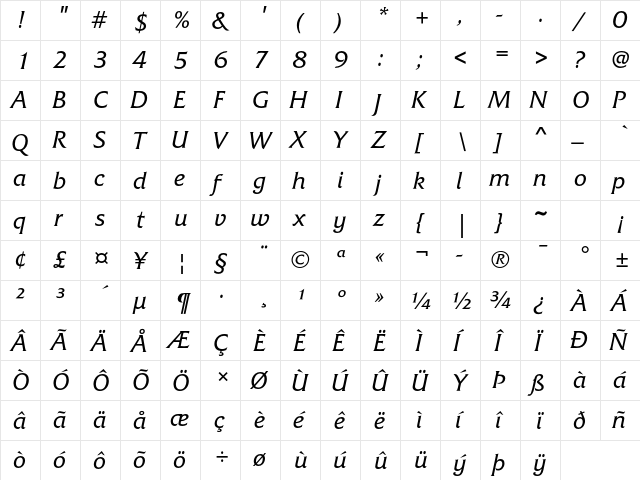
Friz Quadrata Std Italic Font Preview
Friz Quadrata Std Italic
Friz Quadrata Std Italic Font Details
| Designer | Ernst Friz |
Design Context for Friz Quadrata Std Typeface
Friz Quadrata Std offers clean, dependable letterforms without strong stylistic allegiance, making it a practical choice for designers who need flexibility. The dynamic lean of this cut emphasises speed and emphasis in any layout.
Pro Tip: Use Friz Quadrata Std for emphasis, pull quotes, and subheadings where its slanted energy can add rhythm to the layout.